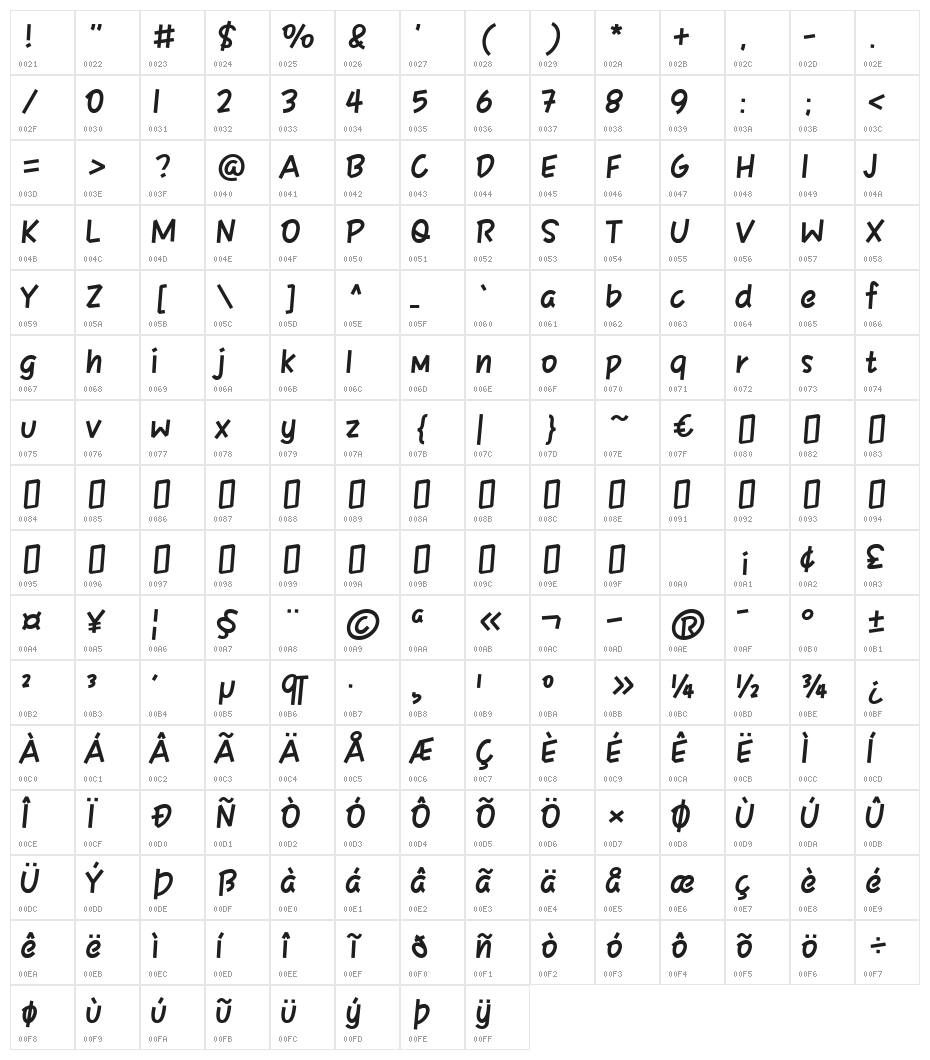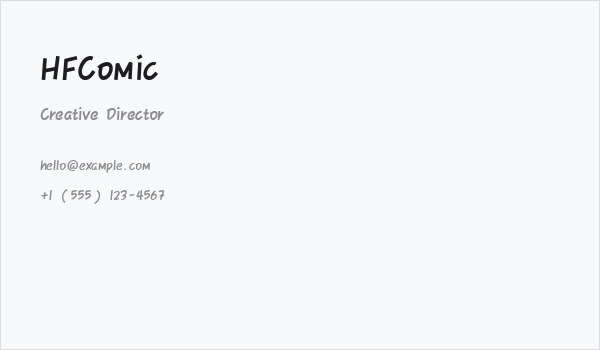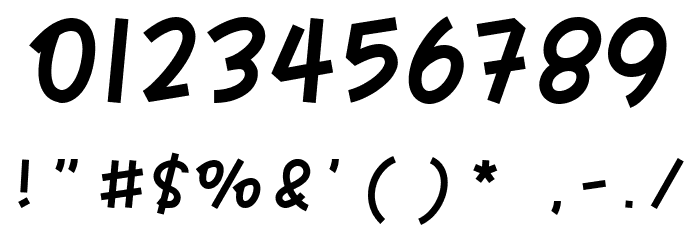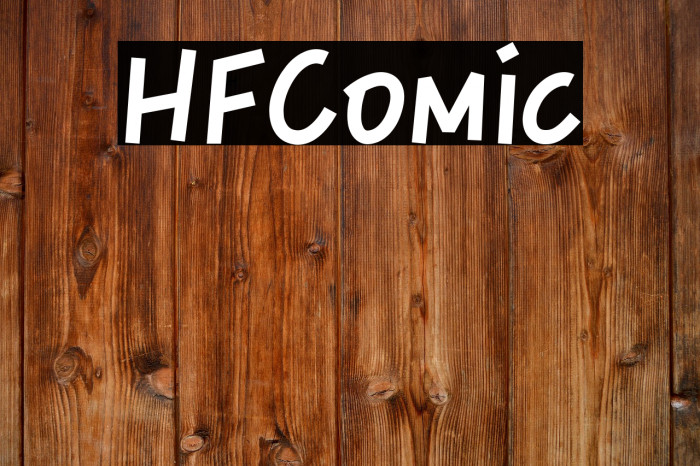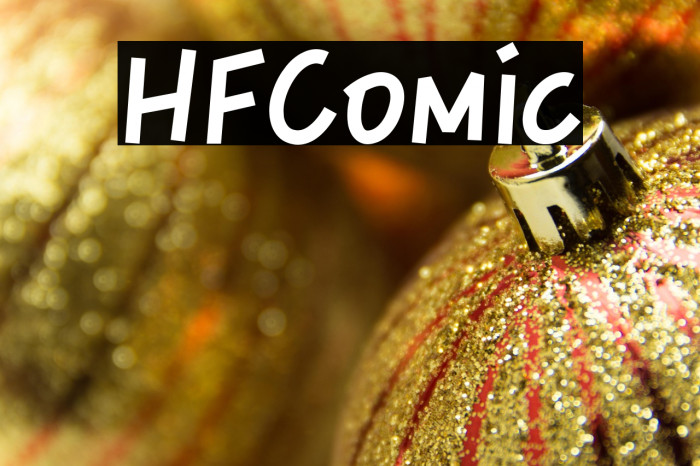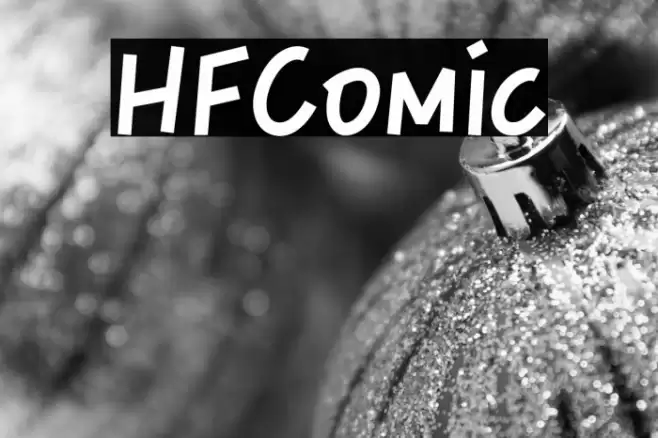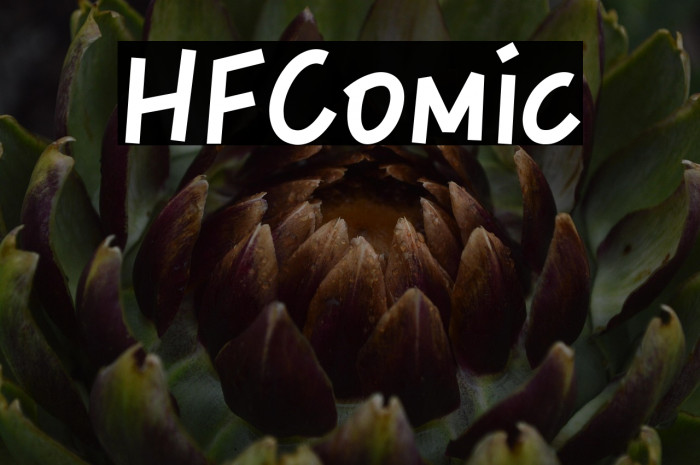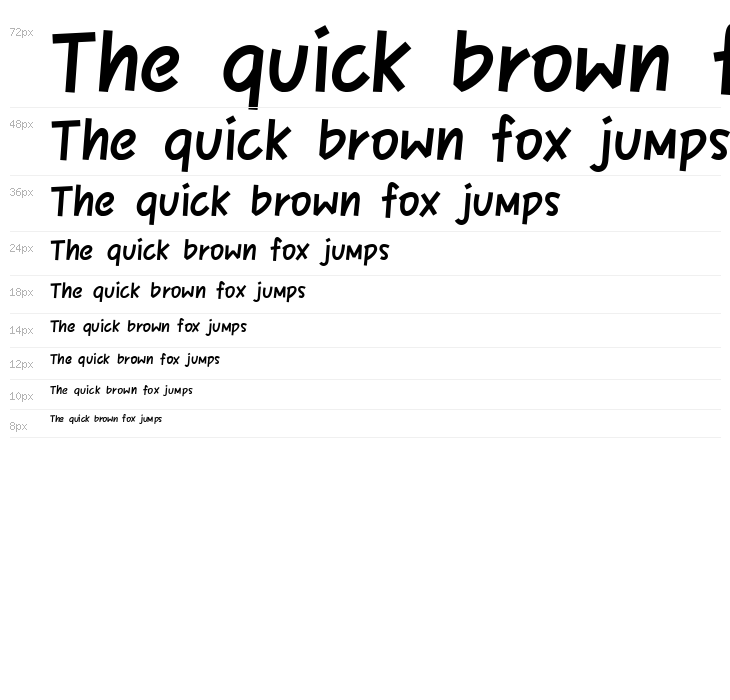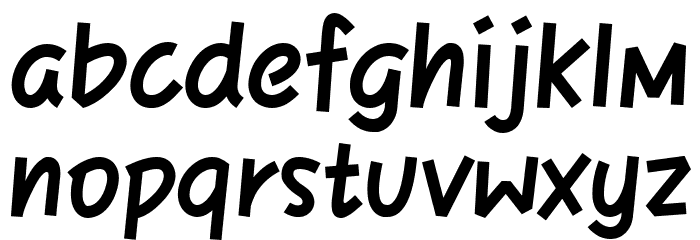
HFComic Font
HFComic Description
This playful and informal font features a handwritten style with a casual, friendly appearance. The letters are slightly slanted, giving a dynamic and energetic feel. The strokes are bold and consistent, with rounded edges that enhance its approachable and fun character. The uppercase and lowercase letters maintain a uniform style, ensuring readability and coherence. The numbers and special characters are designed to match the overall aesthetic, making it versatile for various uses. Its informal nature makes it suitable for projects that require a lighthearted and whimsical touch.
| Overall Style | Casual |
| Use Case | Headlines, Logos, Informal Text |
| Proposed Projects | Ideal for comic strips, children's books, playful branding, and informal invitations. |